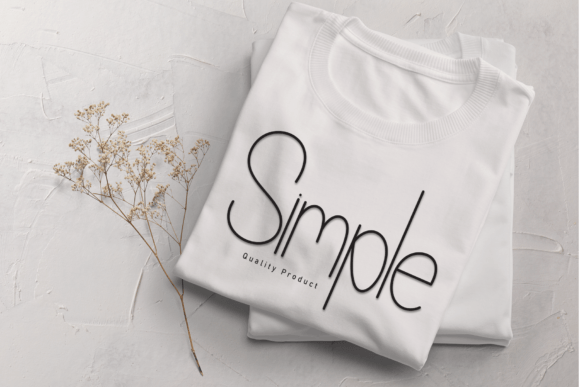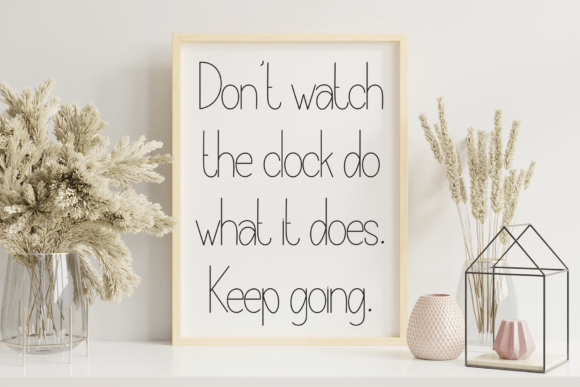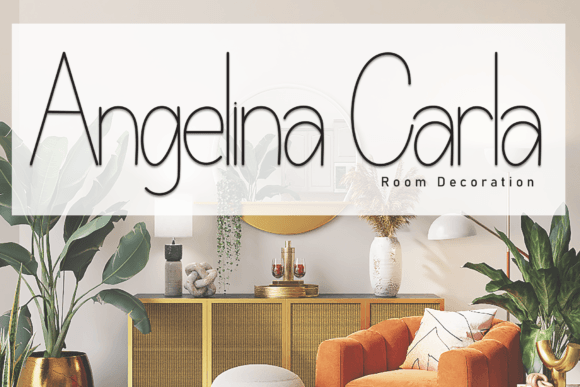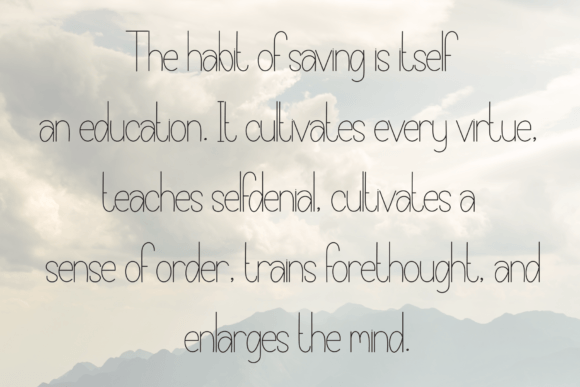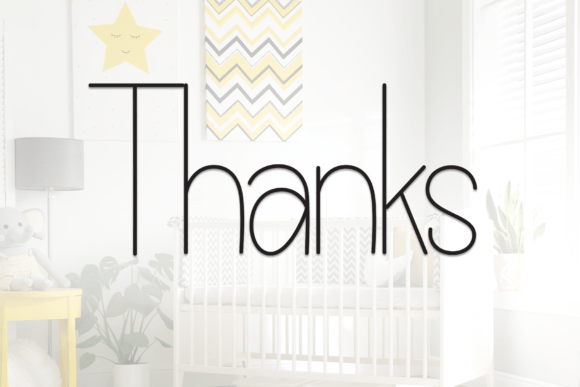
Babyhome Font: The Sweet and Friendly Handwritten Font for Your Design Needs
Are you looking for a font that can add a touch of sweetness and friendliness to your designs? Look no further than the Babyhome font! This adorable handwritten font is perfect for creating wedding invitations, cards, and other designs that require a fun and playful touch. In this article, we’ll take a closer look at the Babyhome font, its features, and how you can use it to elevate your designs.
What is Babyhome Font?
Babyhome is a sweet and friendly handwritten font that is designed to bring a smile to your face. Its cute and fun appearance makes it ideal for a variety of design projects, from wedding invitations and cards to social media graphics and more. The font is carefully crafted to look like it was written by hand, giving it a personal and approachable feel that is sure to delight your audience.
Key Features of Babyhome Font
So, what makes Babyhome font so special? Here are some of its key features:
- Handwritten appearance: Babyhome font has a beautiful, handwritten appearance that gives it a personal and friendly feel.
- Cute and fun: The font is designed to be cute and fun, making it perfect for designs that require a playful touch.
- Easy to read: Despite its playful appearance, Babyhome font is easy to read, making it perfect for body text and other applications where legibility is important.
- Versatile: Babyhome font can be used for a wide range of design projects, from wedding invitations and cards to social media graphics and more.
How to Use Babyhome Font in Your Designs
Now that we’ve covered the features of Babyhome font, let’s talk about how you can use it in your designs. Here are a few ideas to get you started:
- Wedding invitations: Babyhome font is perfect for wedding invitations, as it adds a touch of sweetness and romance to your design.
- Cards: Whether you’re creating birthday cards, thank you cards, or any other type of card, Babyhome font is a great choice.
- Social media graphics: Babyhome font can add a playful touch to your social media graphics, making them more engaging and shareable.
- Branding: If you’re looking for a font that can help you create a friendly and approachable brand identity, Babyhome font is a great choice.
Tips for Using Babyhome Font Effectively
Here are a few tips for using Babyhome font effectively in your designs:
- Use it sparingly: While Babyhome font is cute and fun, it can be overwhelming if used too much. Use it sparingly to add a touch of personality to your design.
- Pair it with other fonts: Babyhome font pairs well with other fonts, such as serif or sans-serif fonts. Experiment with different pairings to find the one that works best for your design.
- Adjust the size and color: Adjust the size and color of Babyhome font to make it work with your design. A smaller size and a pastel color can create a soft and romantic look, while a larger size and a bold color can create a more playful look.
In conclusion, Babyhome font is a sweet and friendly handwritten font that is perfect for adding a touch of fun and personality to your designs. Its cute and playful appearance makes it ideal for wedding invitations, cards, social media graphics, and more. By following the tips outlined in this article, you can use Babyhome font effectively in your designs and create something truly special.